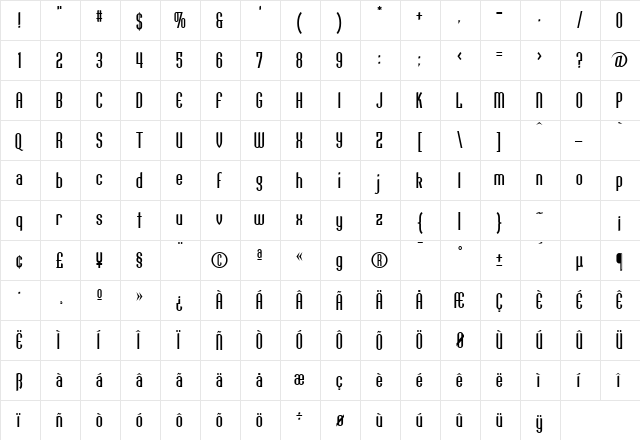
ConquesDemi Regular
Design Context for ConquesDemi Typeface
ConquesDemi offers clean, dependable letterforms without strong stylistic allegiance, making it a practical choice for designers who need flexibility.